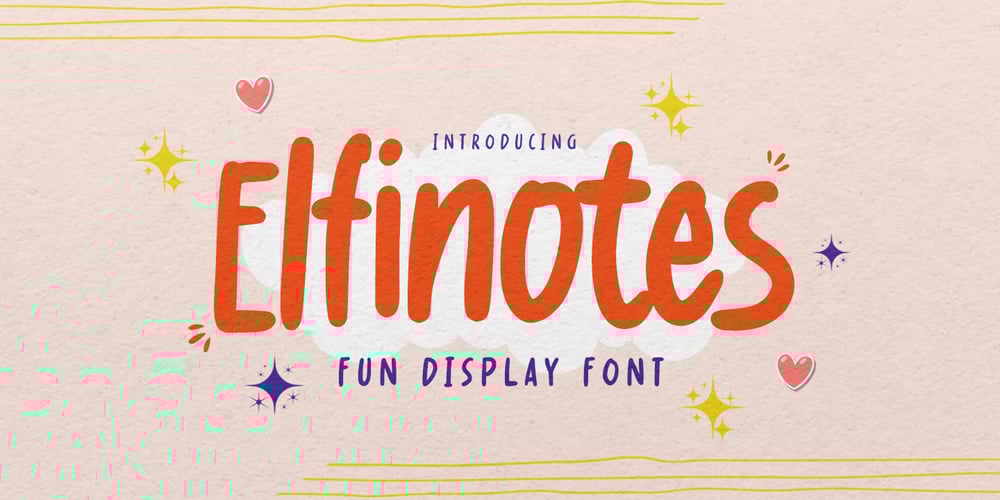
Elfinotes Font Family was designed by Abdul Malik Wisnu, Anang Fibriyanto and published by Gassstype. Elfinotes contains 1 styles and family package options. Hello Everyone, introduce our new product Elfinotes is a Fun Display Font .This is Cute & Lovely Craft font with a natural handwritten feel. This handmade font will make your design has a beautiful natural touch for each details. It is perfect for any design project as Invitation,logo, book cover, craft or any design purposes.Elfinotes is font with strong and challenging nuances. very suitable for the title, typography, Poster, magazines, brochures, packaging,Websites and much more for your design needs, making your designs more modern and professional